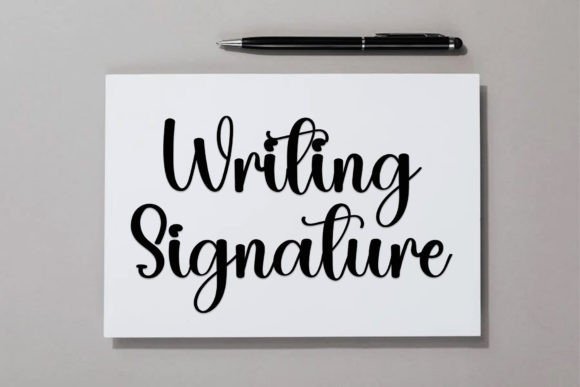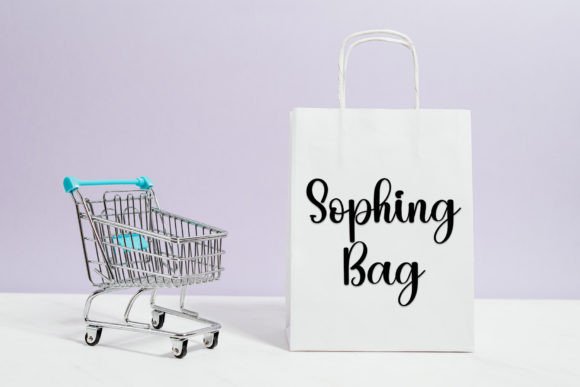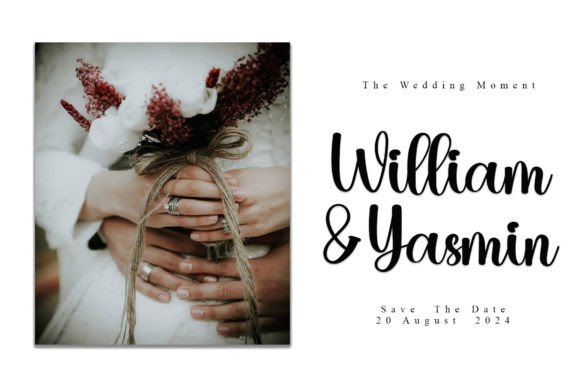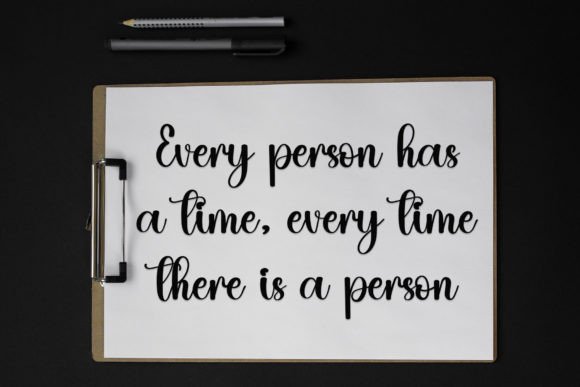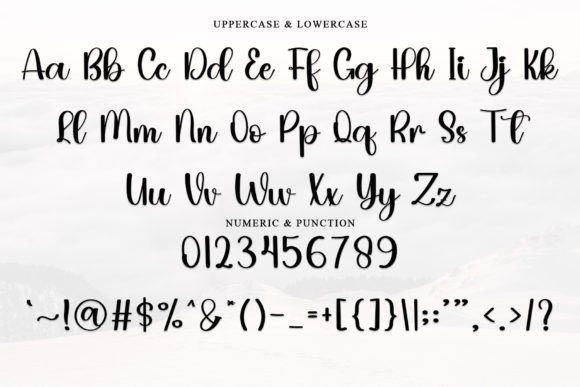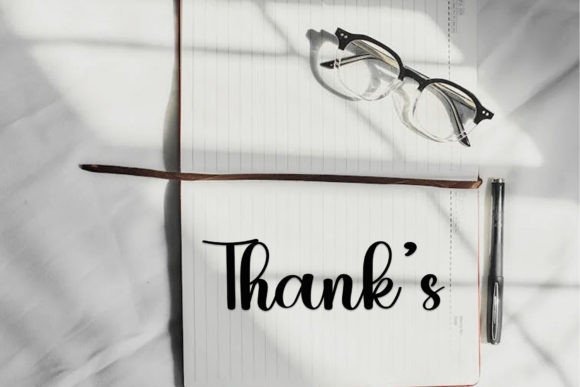
The Elegance of Abstract Font: A Designer’s New Best Friend
I still remember the time I was working on a wedding invitation project, and my client asked for a font that exuded elegance and sophistication. I scoured the internet, tried out countless fonts, but nothing seemed quite right. That was until I stumbled upon Abstract Font. Its fluid strokes and natural flow immediately captivated me, and I knew I had found the perfect fit. In this article, I’ll share my experience with Abstract Font, its features, and how to make the most of it in your designs.
An Honest Review of Abstract Font
So, what makes Abstract Font so special? Here are a few things I love about it:
- ✨ Elegant and sophisticated look that’s perfect for invitations, branding, and social media
- ✅ Fluid strokes and natural flow that create a captivating, hand-written feel
- 💫 Highly versatile and can be used for a wide range of design projects
- 📝 Excellent for adding a personal touch to your designs
Of course, no font is perfect, and Abstract Font has a few quirks:
- 🤔 Some users may find the font a bit too script-heavy for certain projects
- ⚠️ Limited availability of certain glyphs and special characters
The Story Behind Abstract Font
Abstract Font was designed by a team of typographers who wanted to create a font that exuded elegance and sophistication. Inspired by traditional calligraphy and hand-lettering, they crafted a font that would bring a touch of warmth and creativity to any design. With its fluid strokes and natural flow, Abstract Font has become a favorite among designers and crafters alike.
| What is Abstract Font? | Abstract Font is a stylish handwritten font that exudes elegance and sophistication. |
| What can I use Abstract Font for? | Abstract Font is perfect for adding a personal touch to invitations, branding, social media, and more. |